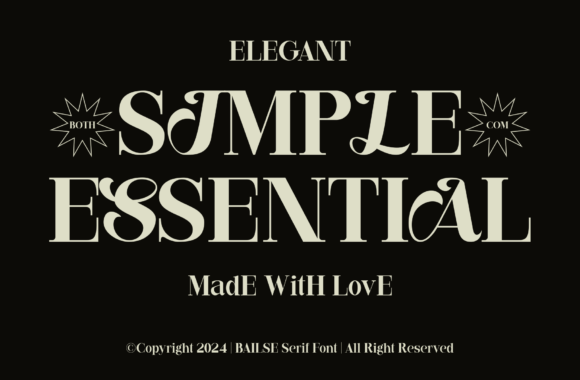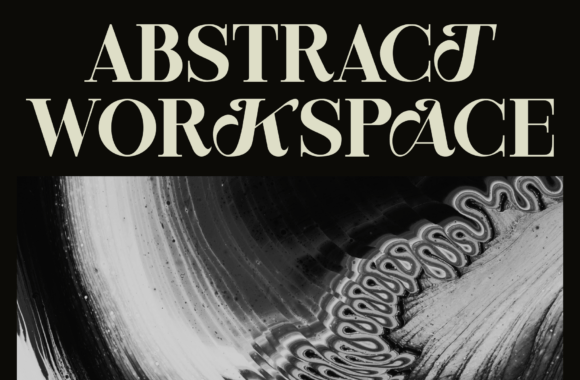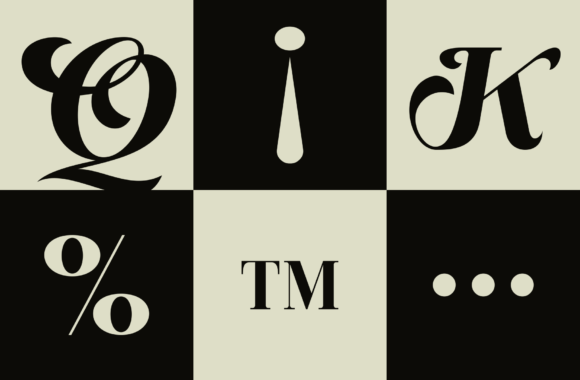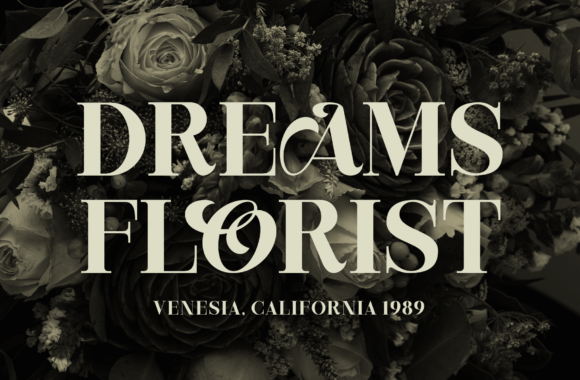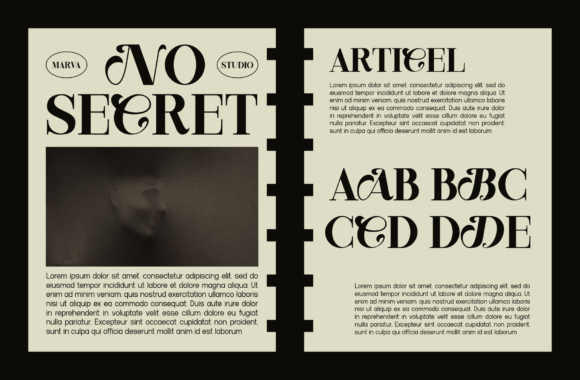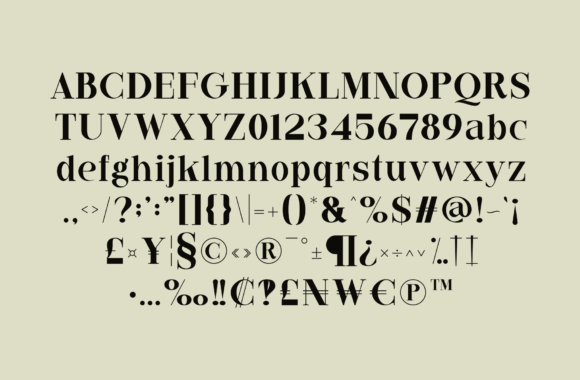
Bailse Font: A Perfect Blend of Classic Elegance and Relaxed Boldness
When it comes to typography, the right font can make all the difference in the aesthetic and effectiveness of a design. For designers and crafters looking for a font that exudes classic elegance with a touch of relaxed boldness, the Bailse Font is an excellent choice. In this article, we’ll explore the characteristics and uses of the Bailse Font, and why it’s a great addition to your typography arsenal.
Characteristics of Bailse Serif Font
The Bailse Serif font is characterized by its fine serif details and well-proportioned proportions. The subtle serif details provide a classic touch without overpowering the overall design. The balanced and proportional proportions of the characters create a neat and orderly impression, making it perfect for designs that require a formal and classic look.
One of the standout features of the Bailse Serif font is its moderate letter height. This ensures good readability without sacrificing aesthetics, making it suitable for use in titles, main text, or other large text in designs. Additionally, the characters have a slight curve, adding softness to the overall look and feel.
Uses of Bailse Serif Font
The Bailse Serif font is ideal for designs that prioritize a formal and classic impression. Its elegant and refined features make it perfect for use in:
- Headings and titles
- Main text and body copy
- Large text displays
- Formal events and invitations
- Business and corporate designs
Bold Decorative Font with a Relaxed Feel
In addition to its classic serif font, the Bailse Font also offers a bold decorative font with a relaxed feel. This font features strong boldness, providing clarity and boldness in the message it wants to convey. However, the character’s style still gives a relaxed and friendly impression, making it perfect for designs that require a touch of playfulness.
The bold decorative font may include decorative details inspired by nature or other organic elements, such as leaf elements, flowers, or shapes inspired by the everyday environment. These details add warmth and playfulness to the overall design, making it suitable for use in:
- Headings and titles
- Signage and displays
- Packaging and branding
- Creative and artistic designs
Benefits of Using Bailse Font
The Bailse Font offers several benefits to designers and crafters, including:
- Elegance and sophistication: The classic serif font exudes elegance and sophistication, making it perfect for formal designs.
- Readability: The moderate letter height and well-proportioned proportions ensure good readability, even in large text displays.
- Versatility: The bold decorative font with a relaxed feel offers a playful touch, making it suitable for a wide range of designs.
- Uniqueness: The Bailse Font’s unique blend of classic and relaxed features sets it apart from other fonts, making it a great addition to your typography collection.
In conclusion, the Bailse Font is a versatile and elegant font that offers a perfect blend of classic sophistication and relaxed boldness. Its fine serif details, well-proportioned proportions, and moderate letter height make it ideal for formal designs, while its bold decorative font with a relaxed feel adds a playful touch. Whether you’re a designer or crafter, the Bailse Font is a great addition to your typography arsenal, offering a unique and sophisticated look that’s sure to elevate your designs.